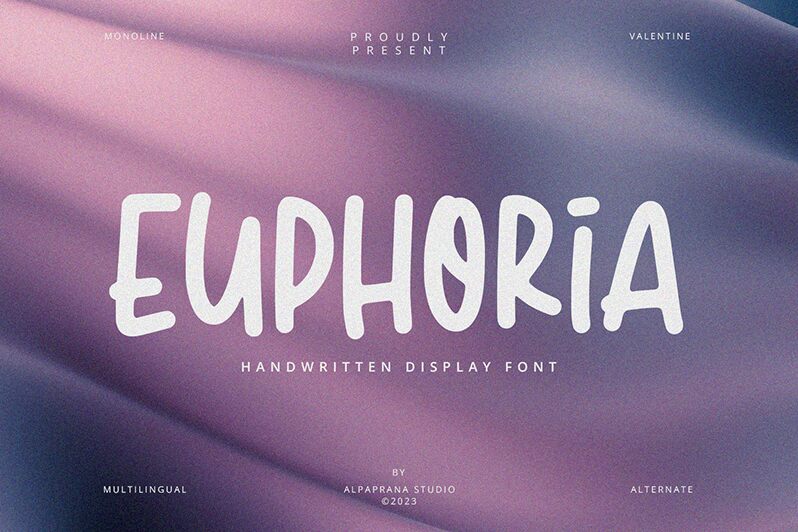
Euphoria font family by Alpaprana Studio is a free handwritten font family which includes 2 font styles. Its distinct lettering inspired by natural handwriting displays friendliness, casualness, and approachability. Infuse your designs with positive energetic vibes so that the texts look modern, organic, expressive, while still preserving their informal tone. Make sure to apply Euphoria on visually pleasing projects, and let its youthful and dynamic glyphs speak out loud.
The font is a perfect fit for advertising designs, branding, packaging, product design, labels, restaurant menu, greeting cards, and invitation designs. It will be equally effective on note taking, school projects, social media posts, children book covers, and personal diary covers. Get creative by using it on a fun upcoming design project you’re working on.